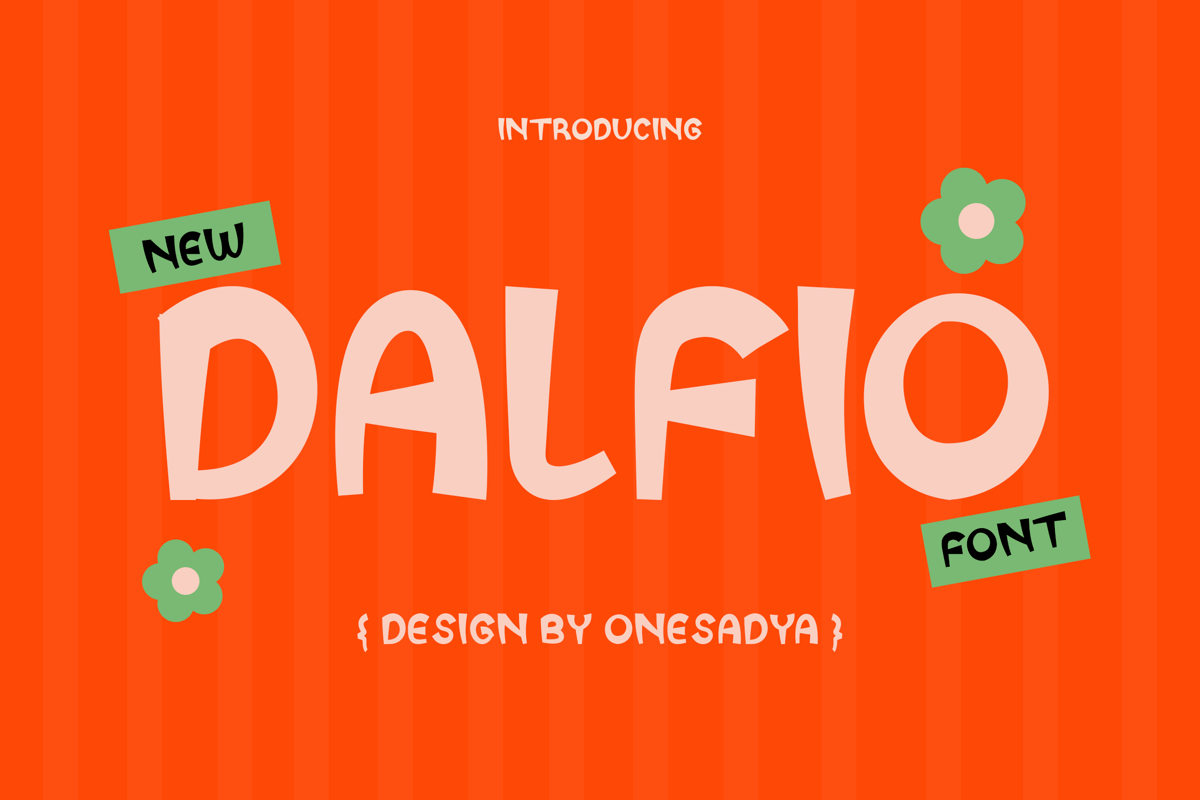
Dalfio – Playful Hand-Drawn Display Font
Dalfio is the bold, hand-drawn display font that brings instant energy and playful personality to any creative project.
Dalfio is a fun and expressive typeface designed to make your designs feel youthful, cheerful, and effortlessly creative. Its bold, irregular shapes and charming handmade character give it a visual style that stands out — perfect for anyone looking to add a lively, energetic touch to their work.
Dalfio works especially well for:
- Modern playful branding
- Retro-inspired artwork
- Lifestyle products
- Event graphics
- Quirky and creative designs
Ideal for use in:
- Branding
- Social Media Graphics
- Packaging Design
- Greeting Cards
- Invitations
- Children's Products
- Creative Headlines